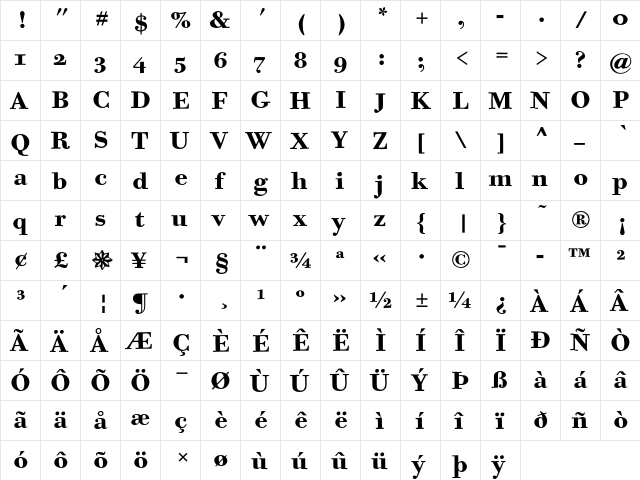
Bodoni Six ITC Bold OS
Design Context for Bodoni Six ITC Typeface
Bodoni Six ITC is a composed and adaptable typeface that performs quietly and consistently across a wide range of design contexts. The heavy weight commands attention and anchors typographic hierarchies.